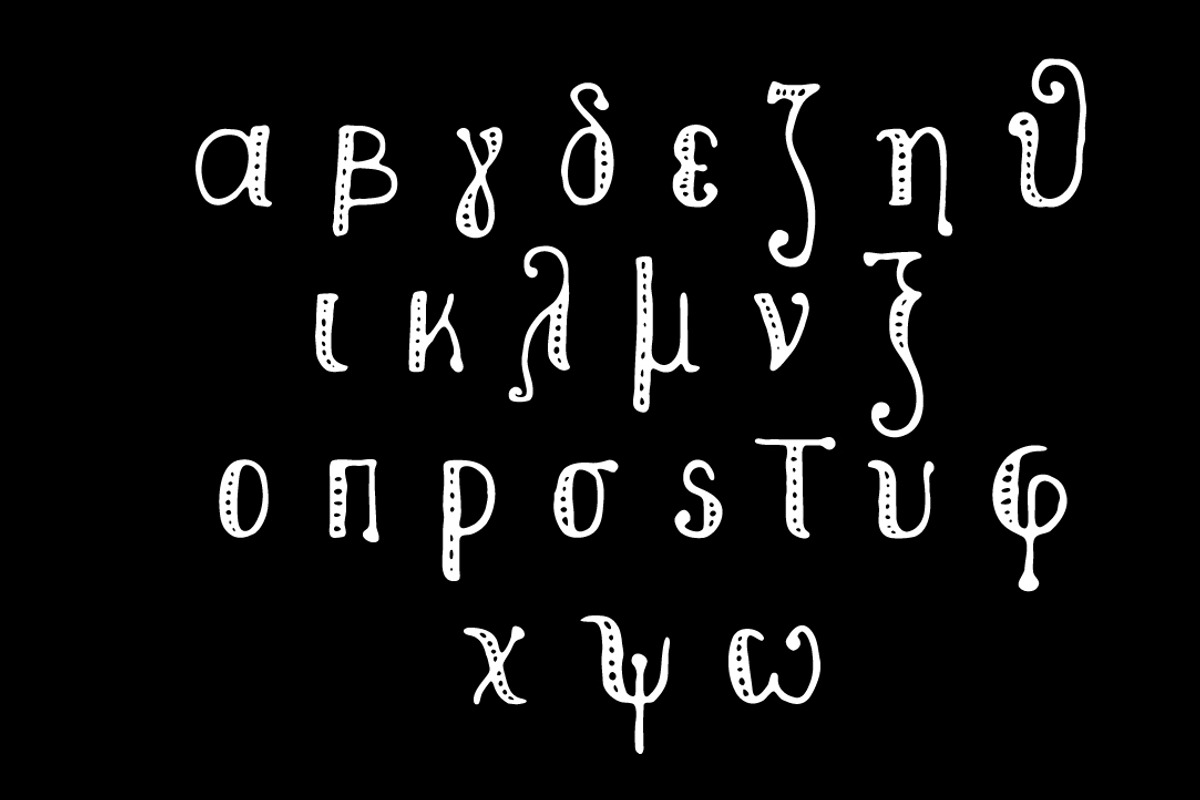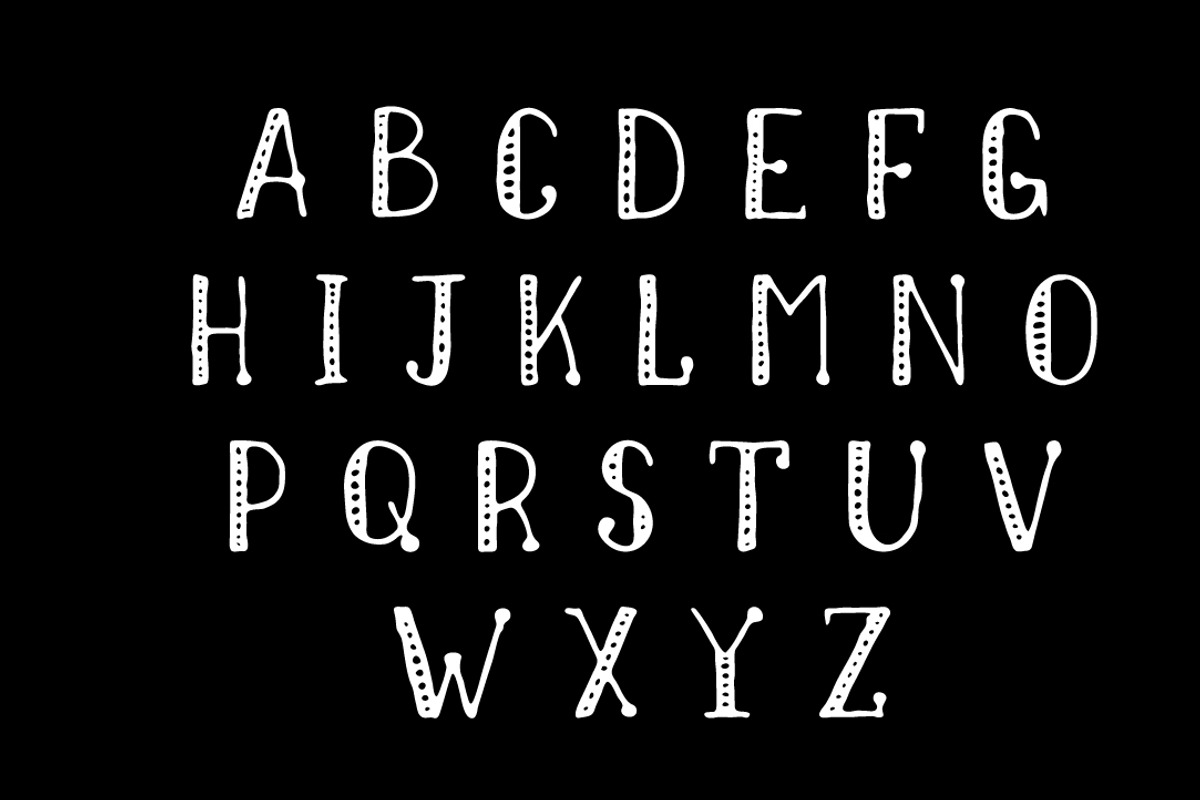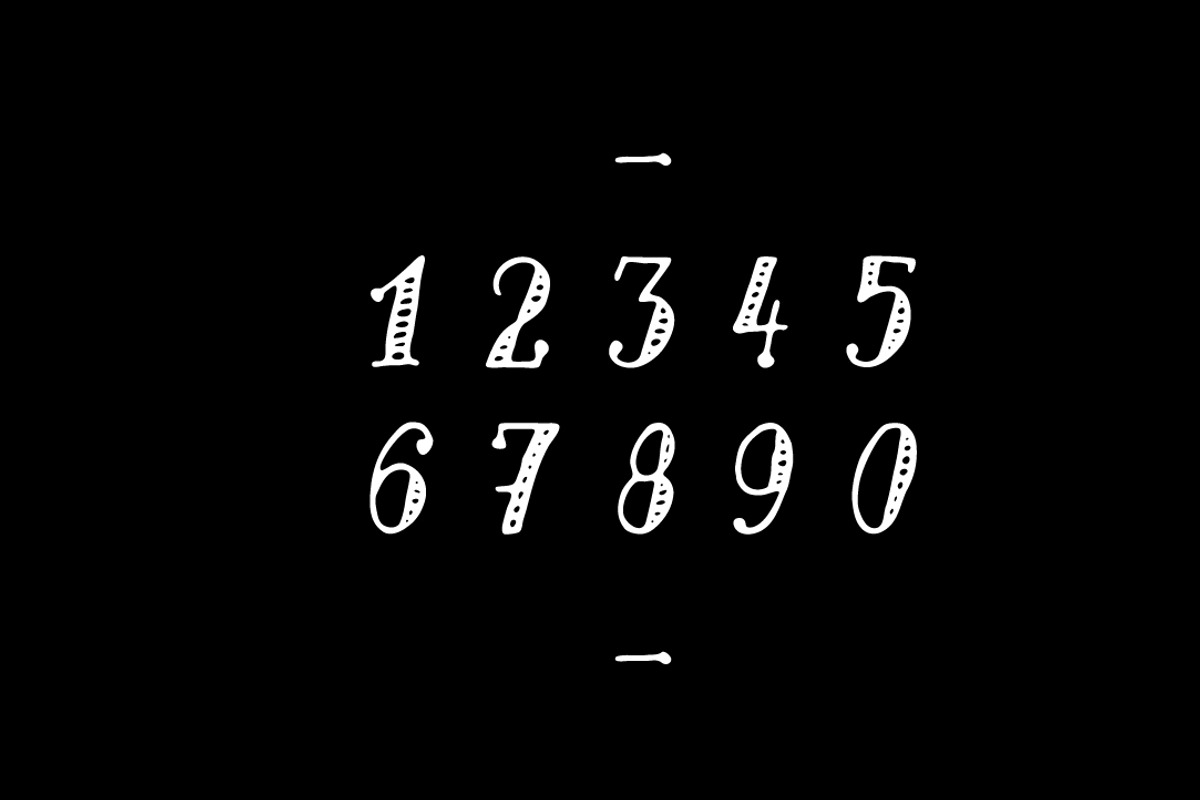
Nikolaidis Handwrinting font
Nikolaidis Handwrinting font by george.nikolaidis is a font selected for branding, posters, packaging, typography.
- Uppercase, Lowercase letters and some essential special characters.
Nikolaidis Handwrinting font by george.nikolaidis fits naturally into Branding, posters, packaging, typography.